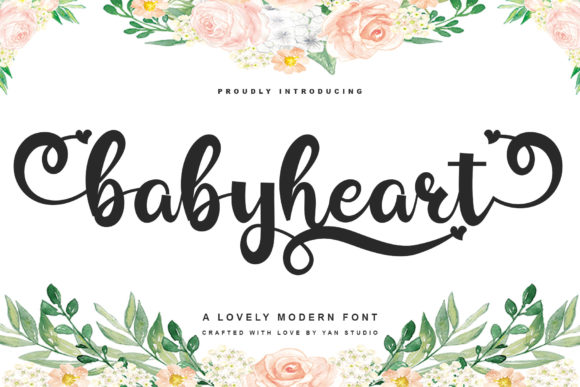
Journey into the realm of enchanting calligraphy with Baby Heart Font, a script font that captivates hearts with its delicate strokes and charming personality. This remarkable creation by YanStudio is more than just a font; it's an artistic expression that breathes life into your designs.
Immerse yourself in a world of limitless creativity as you explore the depths of Baby Heart Font. Its graceful curves and playful flourishes evoke a sense of elegance and sophistication, making it the perfect choice for crafting eye-catching logos, branding that leaves an unforgettable impression, and heartfelt quotes that resonate with your audience.
With Baby Heart Font, the possibilities are endless. Elevate your social media presence with captivating posts and stories that come alive with personality. Craft digital invitations and greeting cards that exude warmth and charm. Design stunning posters and flyers that demand attention and leave a lasting impact.
Baby Heart Font's versatility extends beyond the digital realm. Unleash your creativity in the physical world by creating personalized mugs, t-shirts, and other merchandise that showcase your unique style. Transform ordinary objects into works of art with hand-lettered quotes and intricate designs.
Embrace the magic of Baby Heart Font and unlock a treasure trove of creative opportunities. Its PUA encoding ensures effortless access to all glyphs and swashes, empowering you to add intricate details and flourishes that elevate your designs to new heights.
Dive into the world of Baby Heart Font today and experience the joy of creating designs that captivate and inspire. Let your imagination soar as you explore the endless possibilities that await you with this enchanting font.